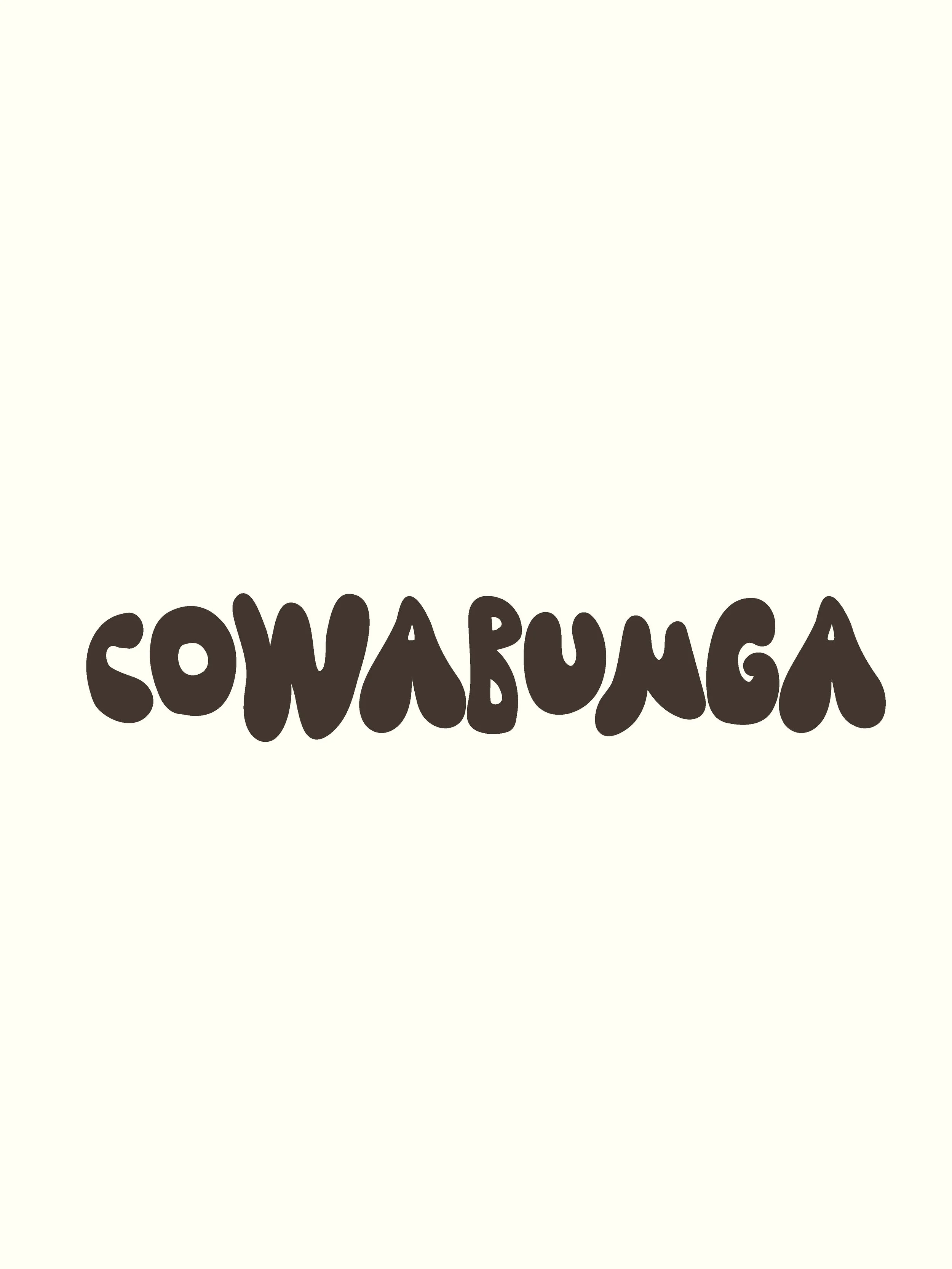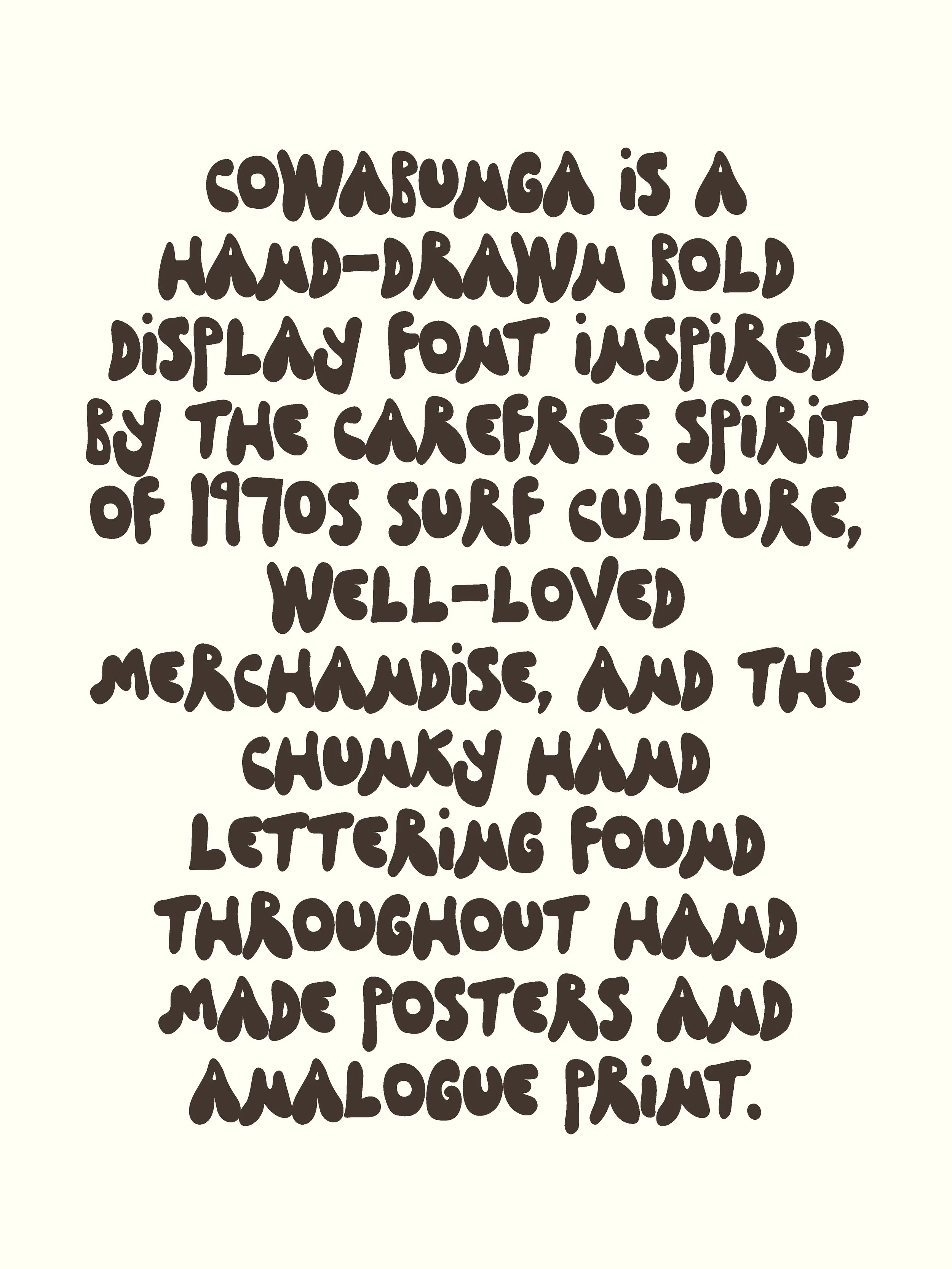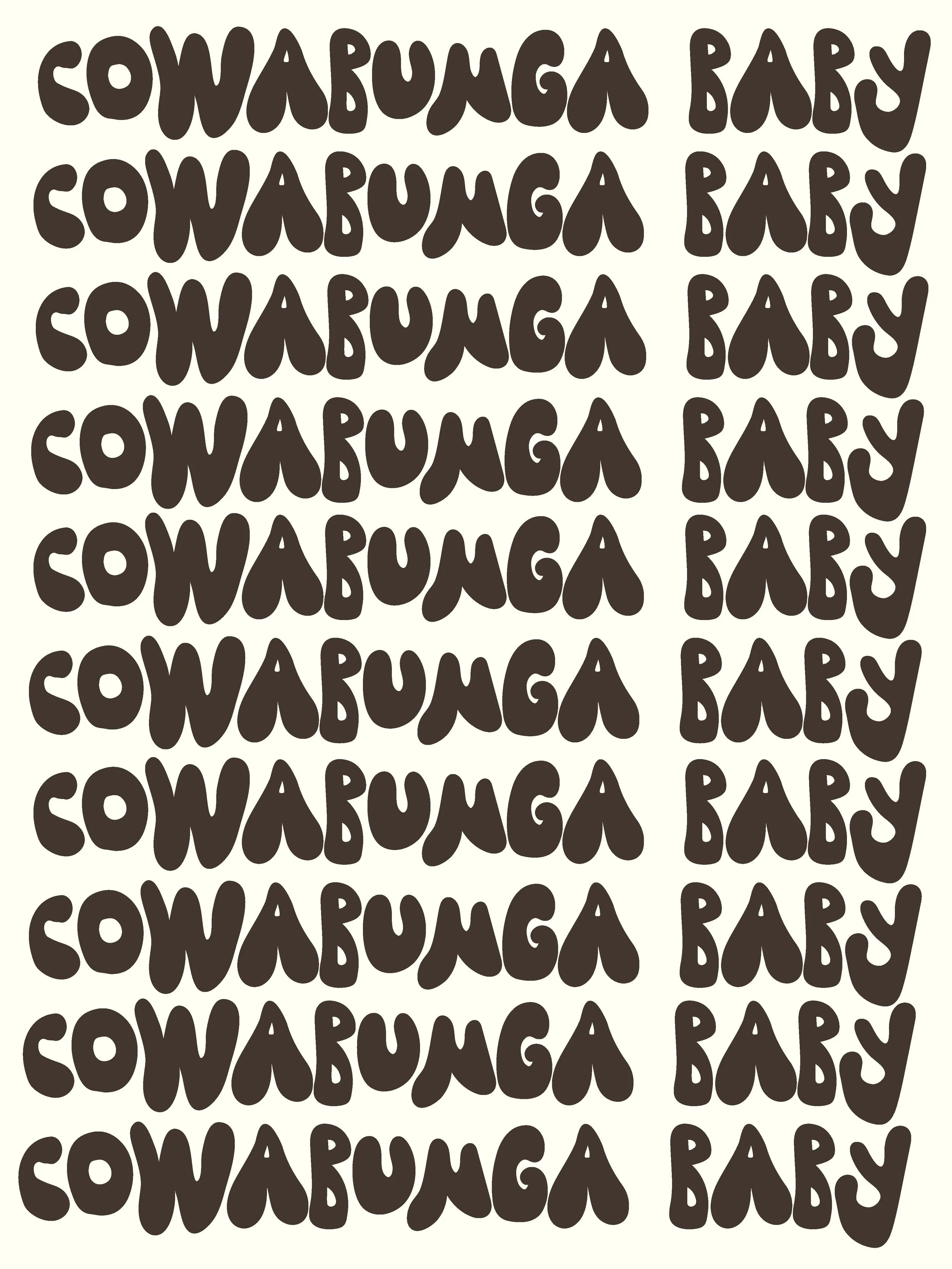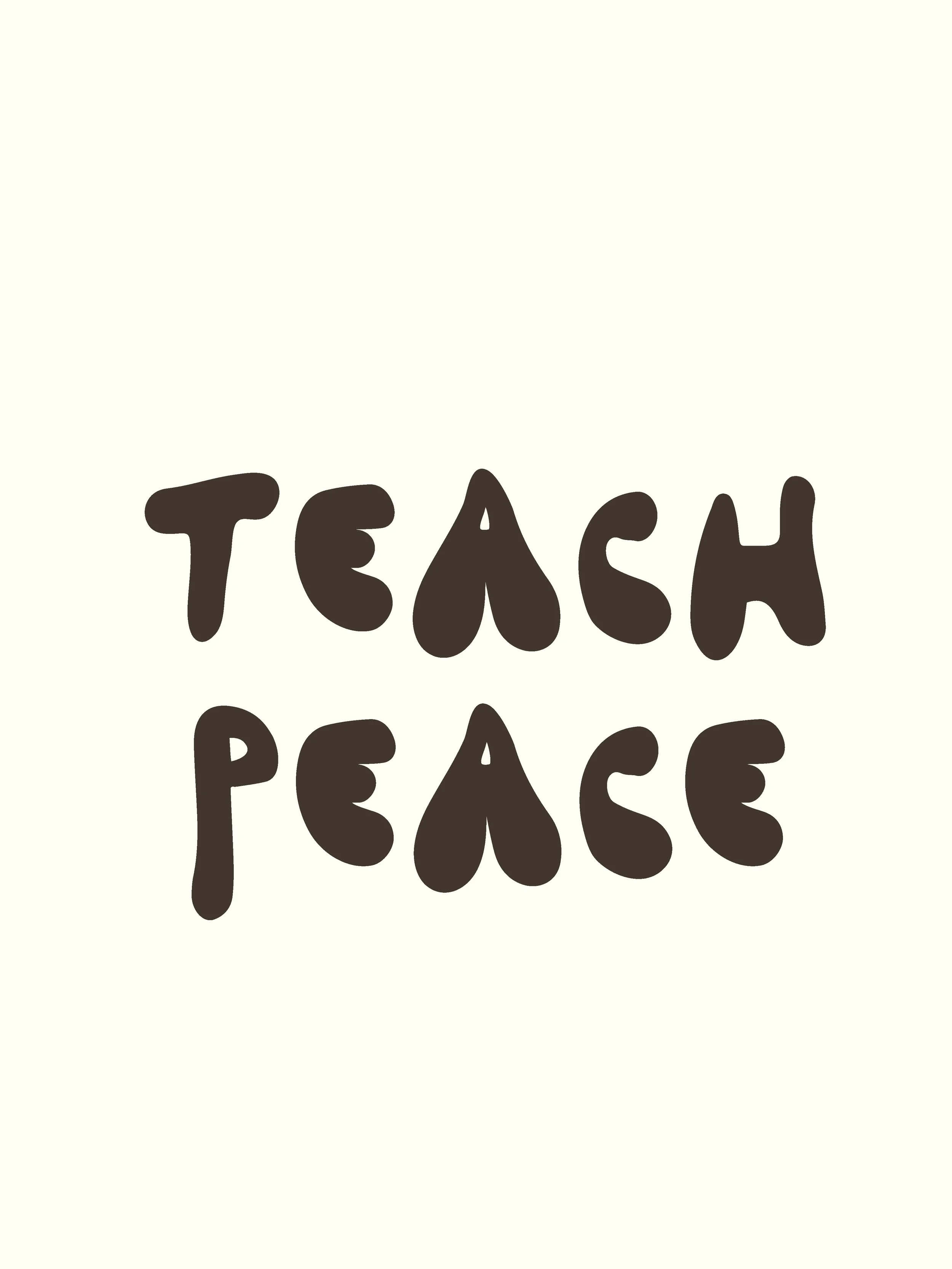
Cowabunga | | Hand Drawn Surf Font
COWABUNGA is a hand-drawn bold display font inspired by the carefree spirit of 1970s surf culture, well-loved merchandise, and the chunky hand lettering found throughout posters and analogue print.
For years, this lettering style has become something of a Madeline O'Donoghue classic, appearing across many of my own artworks, apparel graphics, and prints. Most recognisably, it's the lettering style behind designs such as Teach Peace, evolving over years of drawing by hand into a bold, playful typeface full of warmth and personality.
Every character has been intentionally left slightly imperfect, capturing the feel of brush-painted signs, vintage surf shop graphics, and hand-pulled screen prints. With rounded forms, chunky curves and an easygoing analogue feel, COWABUNGA is designed to bring instant personality to logos, merchandise and branding.
Whether you're creating a surf brand, apparel collection, café identity, poster, packaging or vintage-inspired logo, COWABUNGA delivers a relaxed, nostalgic feel with the confidence of handmade lettering.
A–Z Uppercase only
Numbers 0–9
Very Basic punctuation only
and any project looking for a chunky hand-drawn display font with an effortless 70s coastal spirit